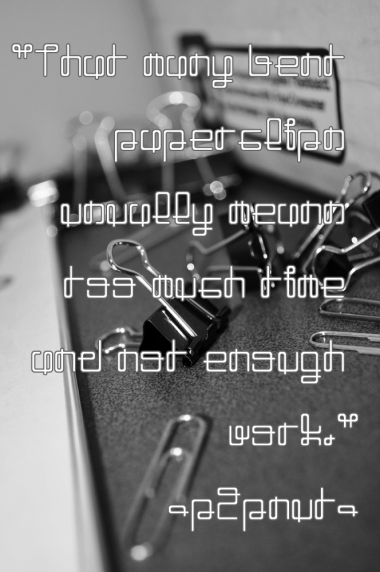
Good fun ... that many bent paperclips usually meant too much time and not enough work :-)
It's not a coincidence : I am fontstructing instead of working.
Haha. You've been bitten by the FontStruct bug.
Oh and...Cool font too.
lots of fun here. modern yet retro. very nice :)
Congratulations! FontStruct Staff have deemed your FontStruction worthy of special mention. “IR PaperClip” is now a Top Pick.
great work!
very nice work :)
x for apple macos command key. Cool rethinking of the script. Not sure about c and s readability.
e is the only normal letter
A lowercase Ø would make the font way better.